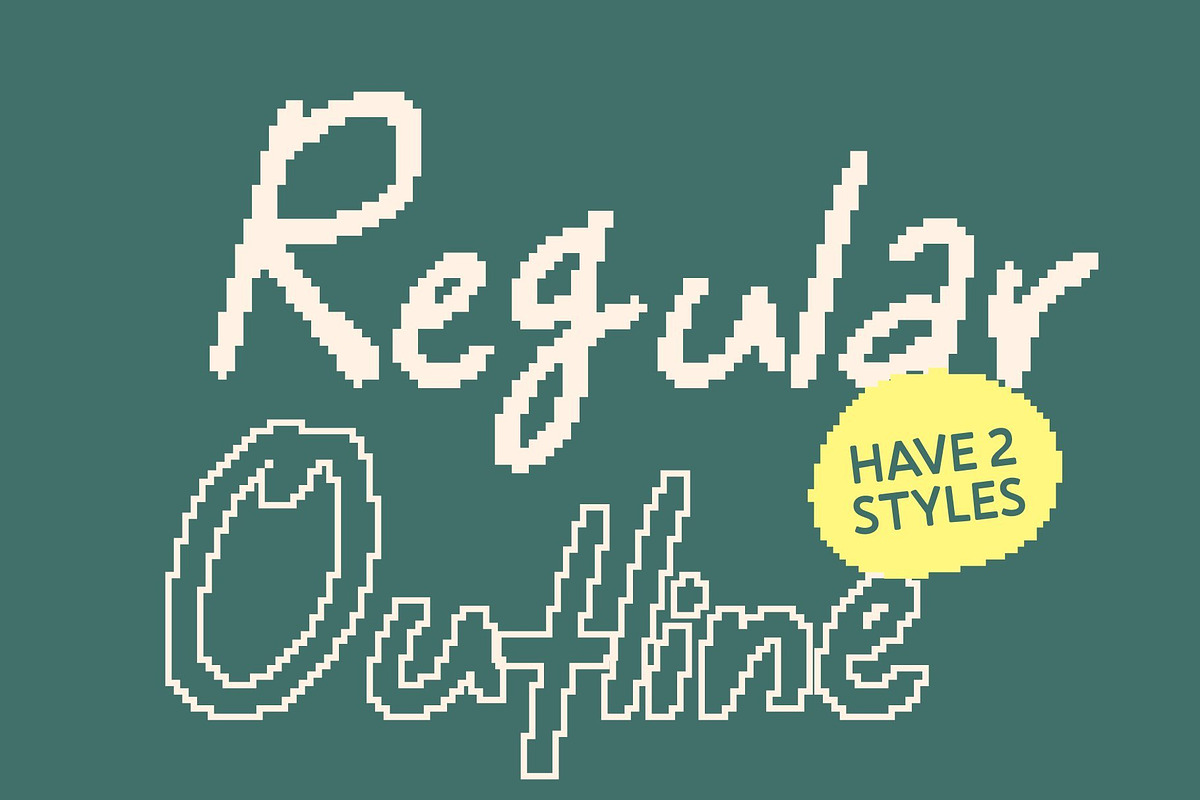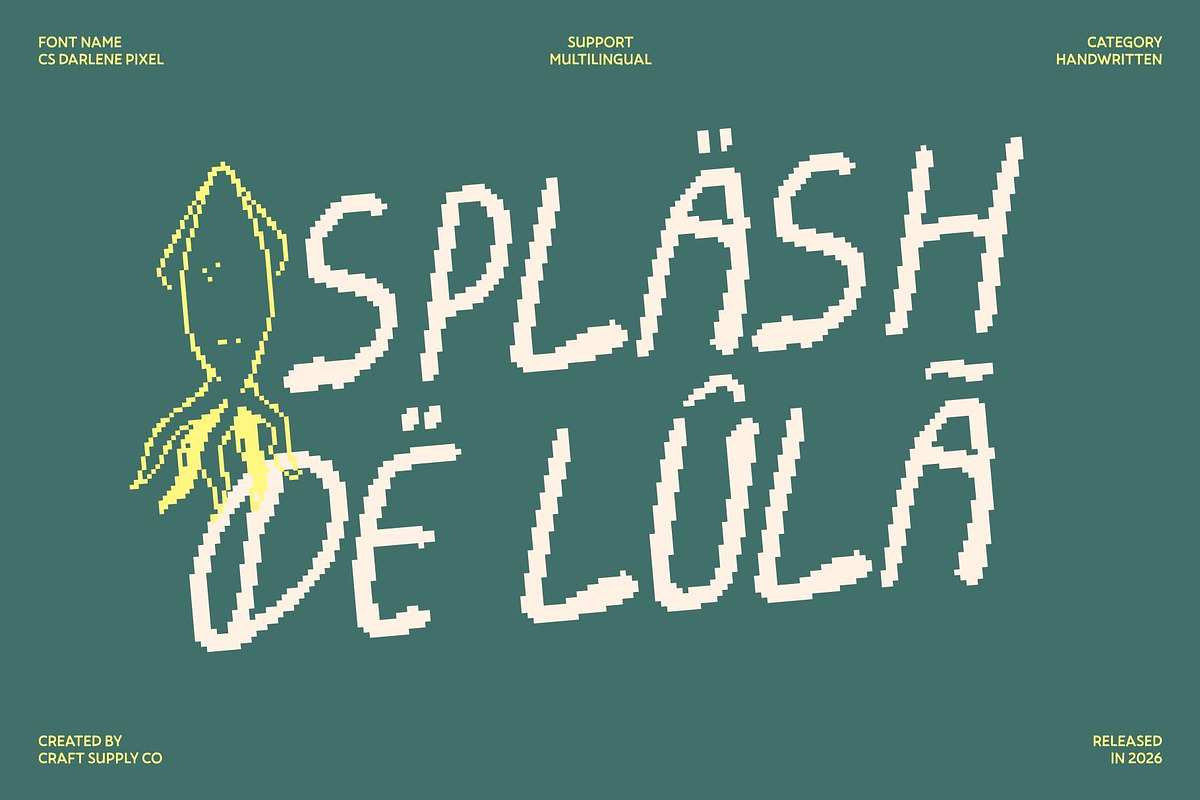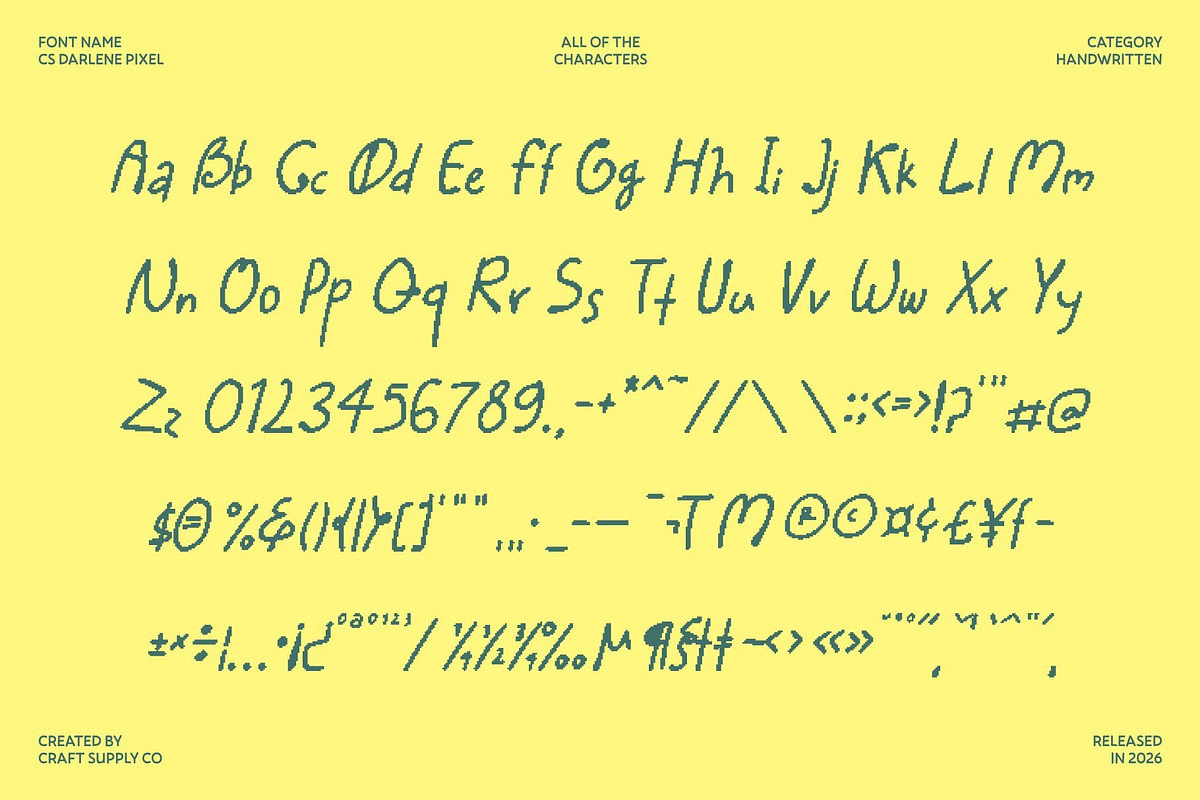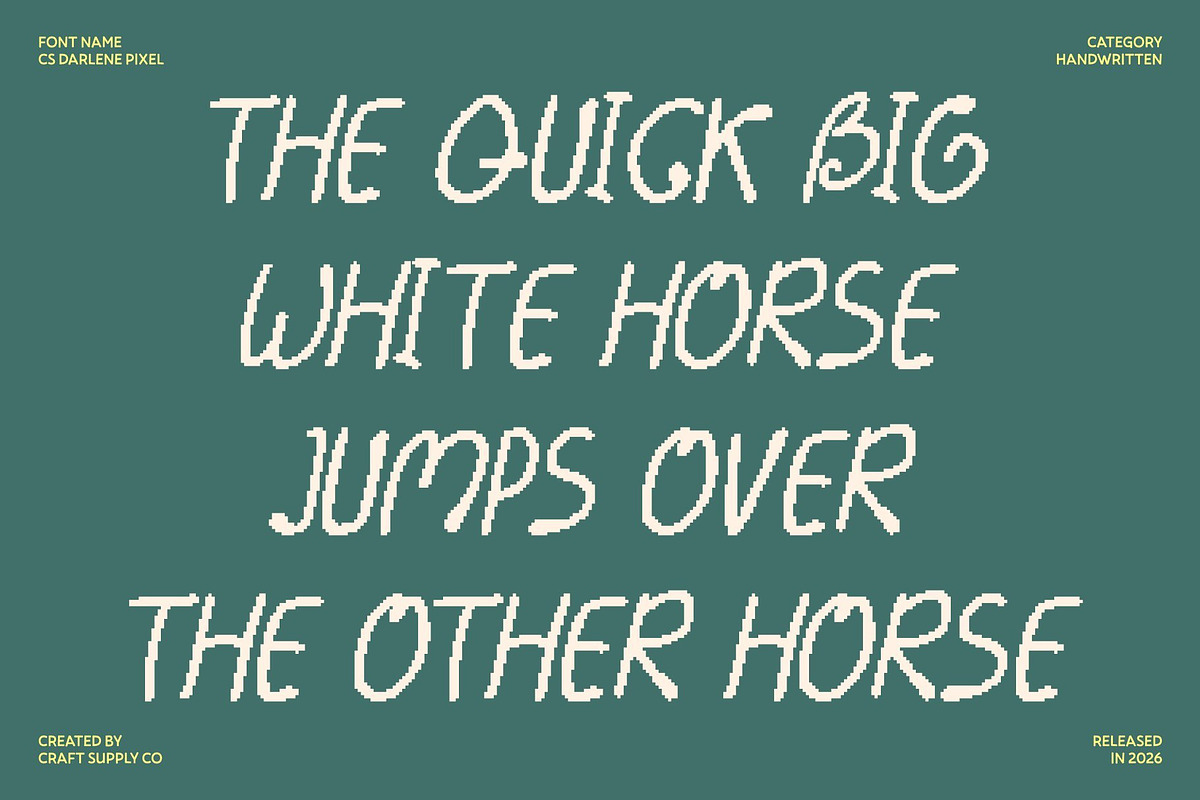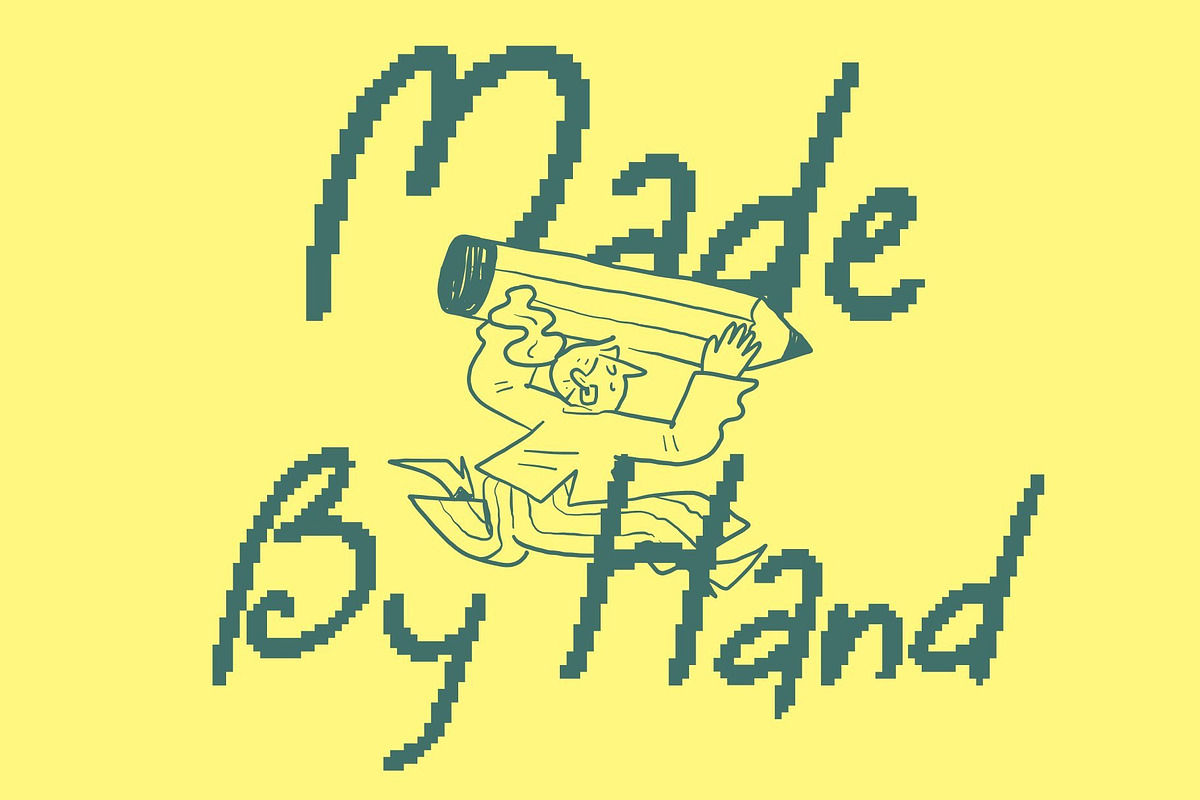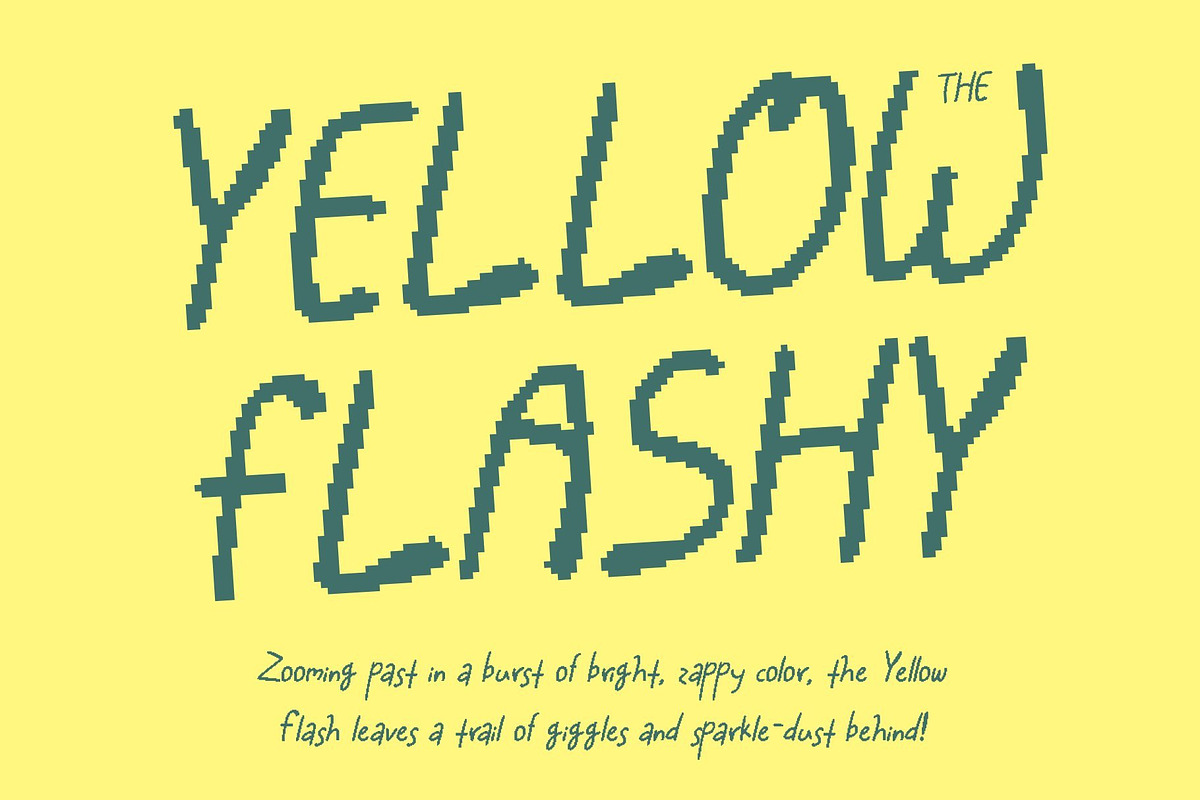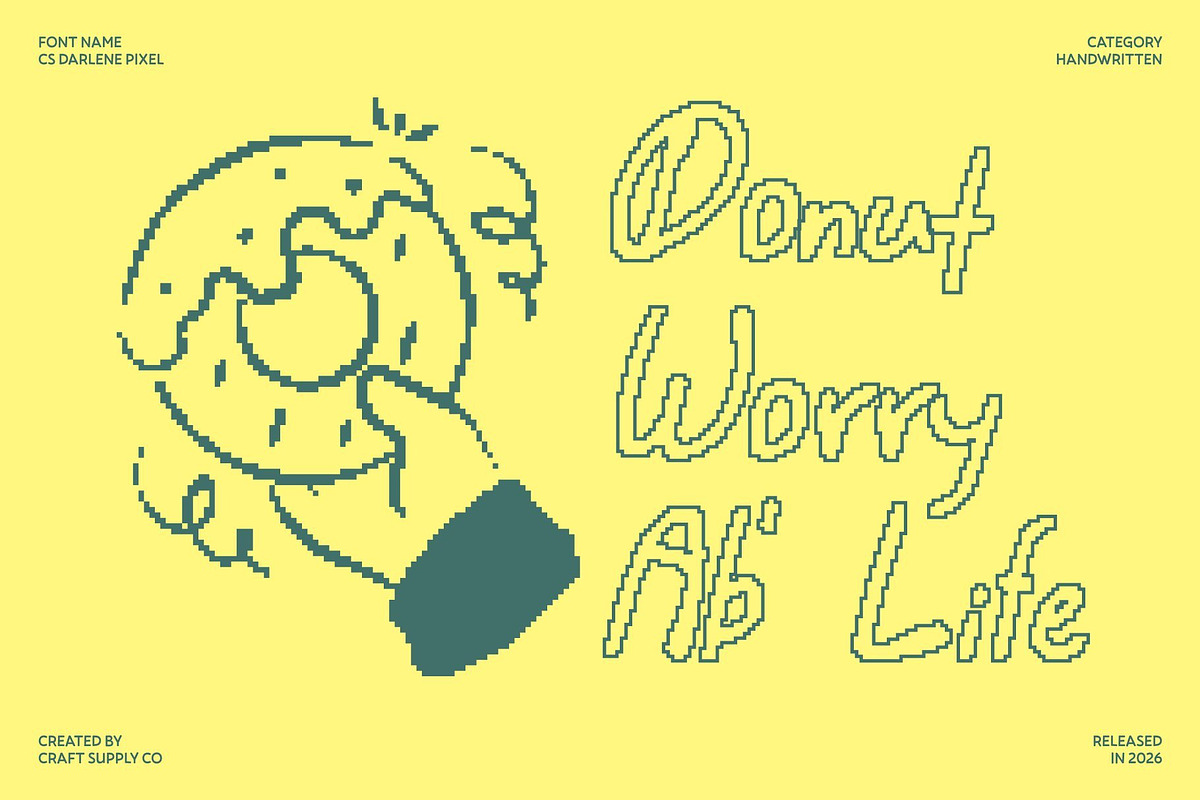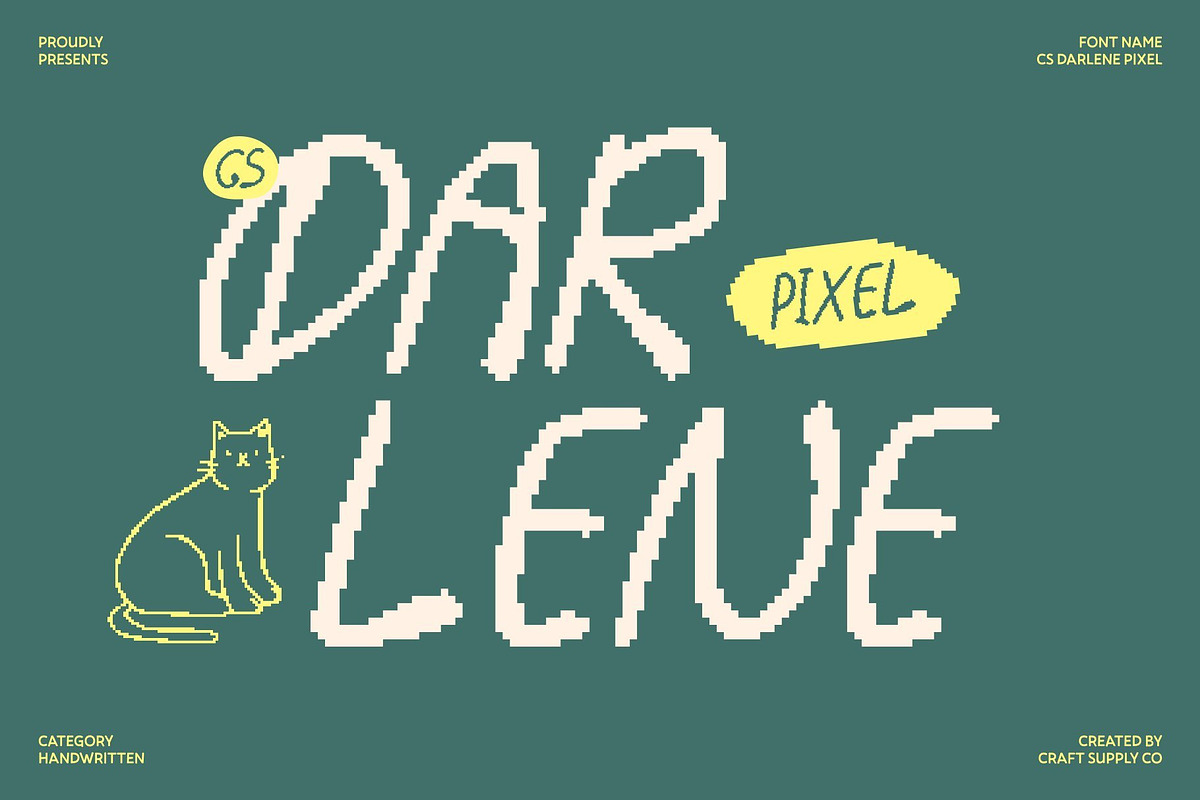
CS Darlene Pixel
CS Darlene Pixel – Bad Handwritten Energy with Digital Personality
Expressive Pixel Form with Raw Handwritten Style This is a “bad handwritten” display font that proudly embraces imperfection. Built with overflowing ink strokes, uneven shapes, and a playful pixel-based structure, this font delivers a spontaneous, rebellious energy. The fusion of rough handwritten character with sans serif balance gives each letter strong personality, making the font feel authentic, youthful, and unapologetically expressive.
Playful Imperfection with Pixel Attitude The intentionally rough and imperfect aesthetic is where this font truly shines. Its quirky inconsistencies and raw texture create a carefree, hand-drawn look enhanced by subtle digital pixel detail. These imperfections aren’t flaws they’re a design language that celebrates freedom, creativity, and confident individuality.
Energetic, Friendly, and Full of Motion With its lively rhythm and textured flow, this font radiates friendliness and creative energy. It breaks away from polished perfection, turning messy strokes and irregular forms into a bold visual statement that feels fun, human, and full of life.
Perfect for Youthful, Casual, and Expressive Projects This is ideal for youth branding, greeting cards, posters, zines, social media graphics, and casual creative projects. It transforms simple words into bold expressions perfect for designers who want to showcase spontaneity, attitude, and raw hand-drawn charm with a modern digital twist.
- CS Darlene Pixel Regular
- CS Darlene Pixel Outline